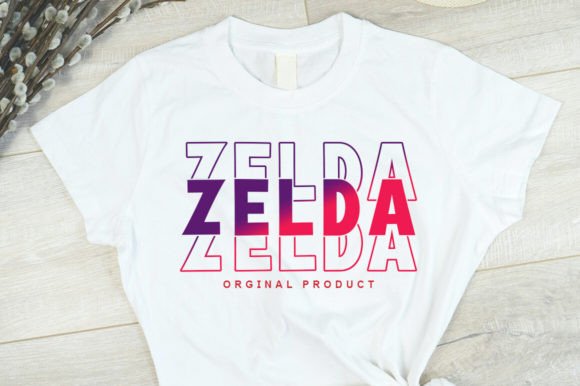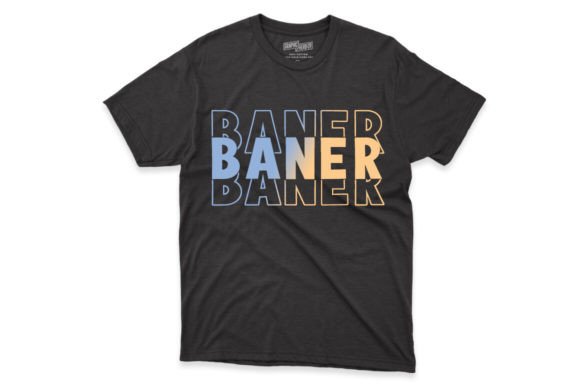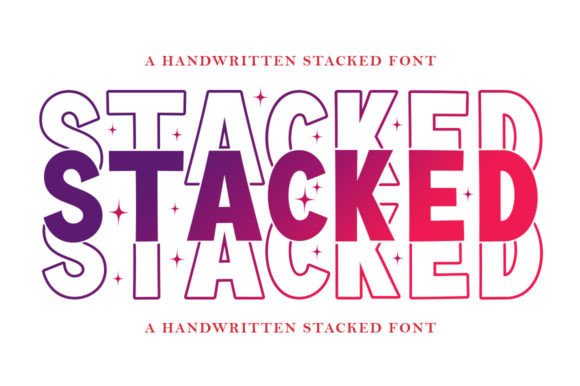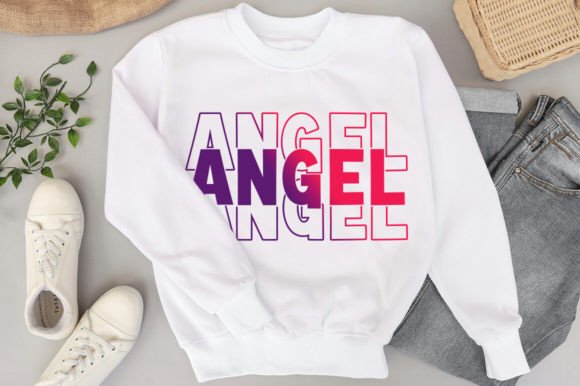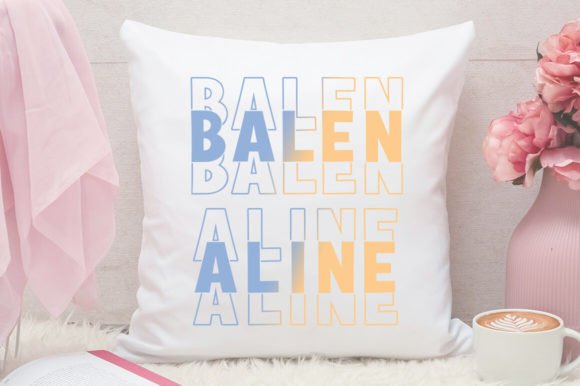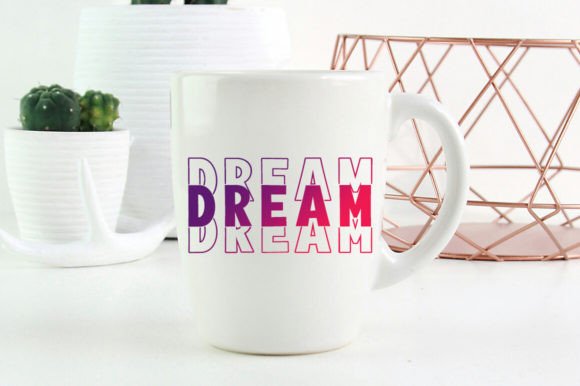
Dreamer Stacked Font: Elevate Your Designs with a Cool Display Font
Dreamer Stacked is a cool display font that has been making waves in the design community. Whether you use it for custom designs, DIY crafts, or any creation that needs a beautiful touch, this font is a great choice. In this article, we’ll dive into the features and benefits of Dreamer Stacked, and explore how you can use it to take your designs to the next level.
What is Dreamer Stacked Font?
Dreamer Stacked is a unique and stylish font that is perfect for adding a touch of elegance to your designs. It’s a stacked font, which means that it’s designed to be used in a stacked or layered format, allowing you to create visually appealing and dynamic text arrangements. The font is highly versatile and can be used for a wide range of design projects, from custom signs and posters to DIY crafts and digital graphics.
Key Features of Dreamer Stacked Font
- Unique Stacked Design: Dreamer Stacked features a unique stacked design that allows you to create dynamic and visually appealing text arrangements.
- Highly Versatile: The font is highly versatile and can be used for a wide range of design projects, from custom signs and posters to DIY crafts and digital graphics.
- Elegant and Sophisticated: Dreamer Stacked has an elegant and sophisticated feel that’s perfect for adding a touch of class to your designs.
- Easily Customizable: The font is easily customizable, allowing you to adjust the size, color, and style to suit your design needs.
Benefits of Using Dreamer Stacked Font
So why should you choose Dreamer Stacked for your design projects? Here are just a few benefits of using this amazing font:
- Adds Visual Interest: Dreamer Stacked adds visual interest to your designs, making them more engaging and attention-grabbing.
- Enhances Creativity: The font’s unique stacked design allows you to experiment with different text arrangements and creative ideas.
- Perfect for DIY Crafts: Dreamer Stacked is perfect for DIY crafts, such as handmade cards, scrapbooking, and other paper crafts.
- Great for Digital Graphics: The font is also great for digital graphics, such as social media graphics, blog posts, and website headers.
How to Use Dreamer Stacked Font
Using Dreamer Stacked is easy! Here are a few tips to get you started:
- Choose Your Design Project: Decide on the design project you want to work on, whether it’s a custom sign, poster, or DIY craft.
- Select Your Font Size and Color: Choose the font size and color that suits your design needs.
- Experiment with Stacked Text: Experiment with different stacked text arrangements to add visual interest to your design.
- Add Your Text: Add your text and adjust the font settings as needed.
Tips and Tricks for Working with Dreamer Stacked
Here are a few tips and tricks to help you get the most out of Dreamer Stacked:
- Use Contrasting Colors: Use contrasting colors to make your text stand out.
- Experiment with Different Font Sizes: Experiment with different font sizes to create visual interest.
- Add Texture and Patterns: Add texture and patterns to your design to give it an extra boost.
Dreamer Stacked is a cool display font that’s perfect for adding a touch of elegance to your designs. With its unique stacked design, highly versatile nature, and elegant feel, it’s a great choice for custom designs, DIY crafts, and digital graphics. By following the tips and tricks outlined in this article, you can take your designs to the next level and create stunning visual arrangements that will leave a lasting impression.